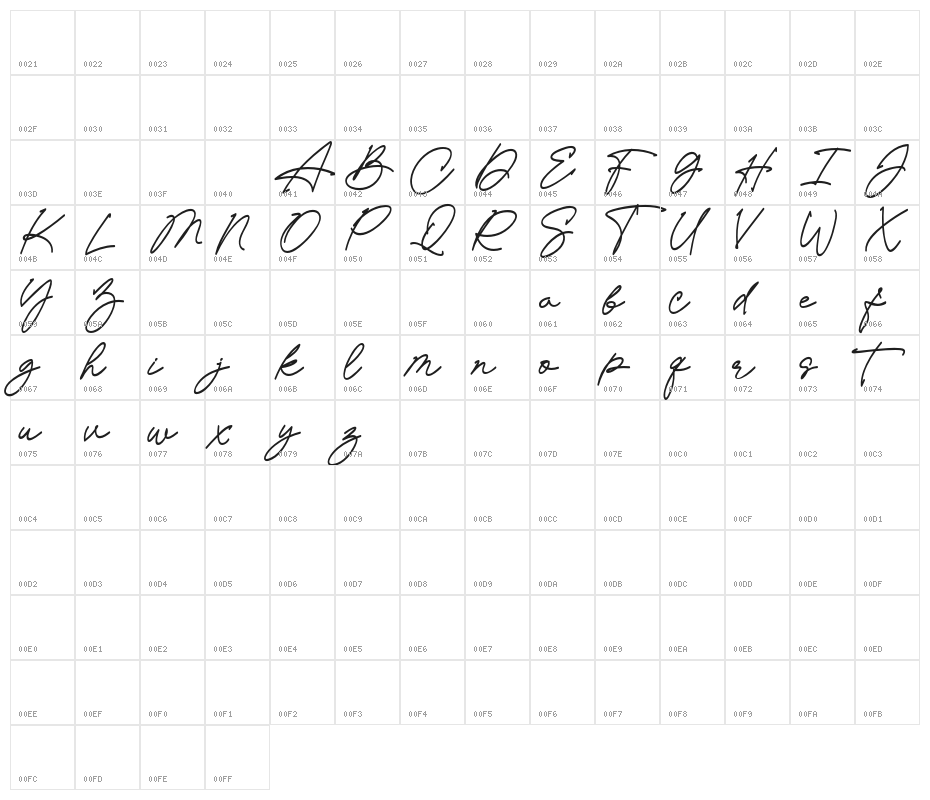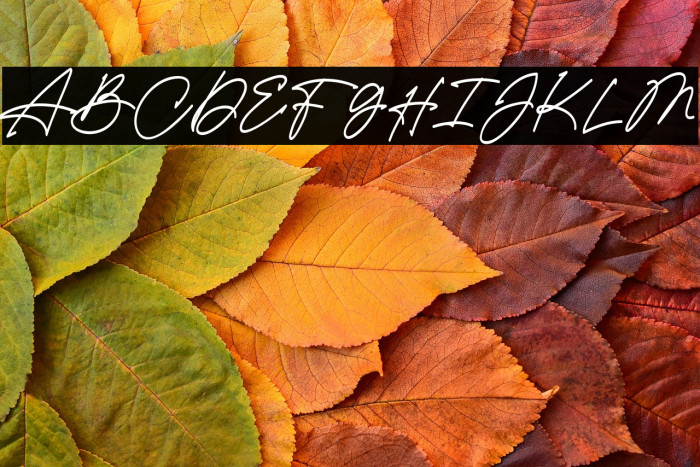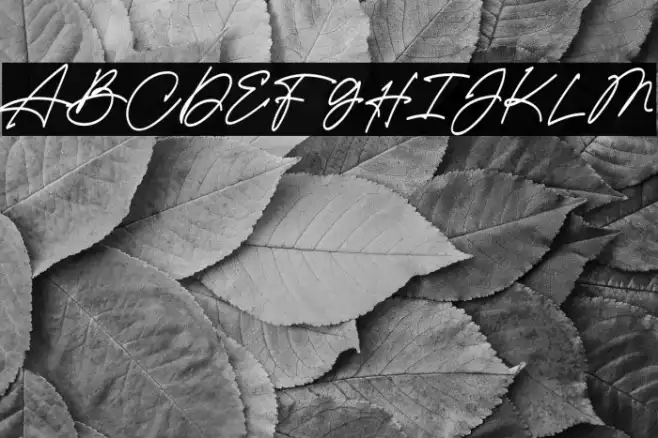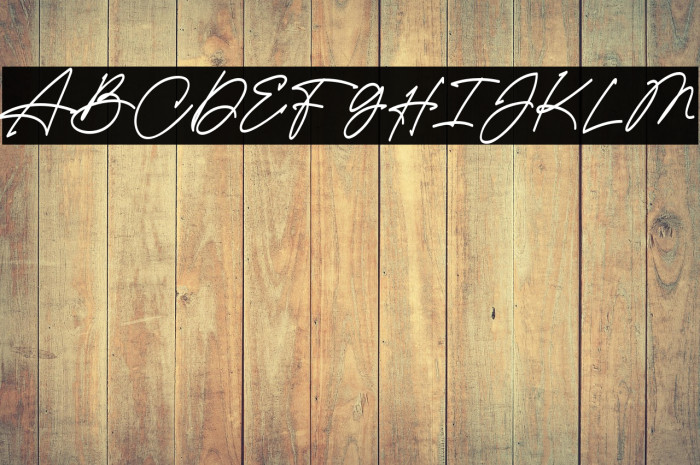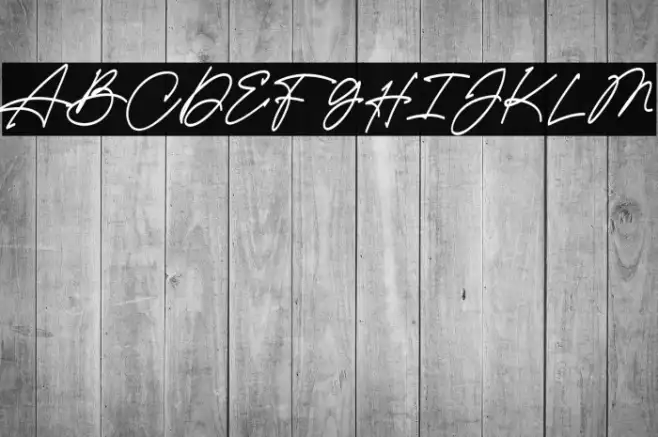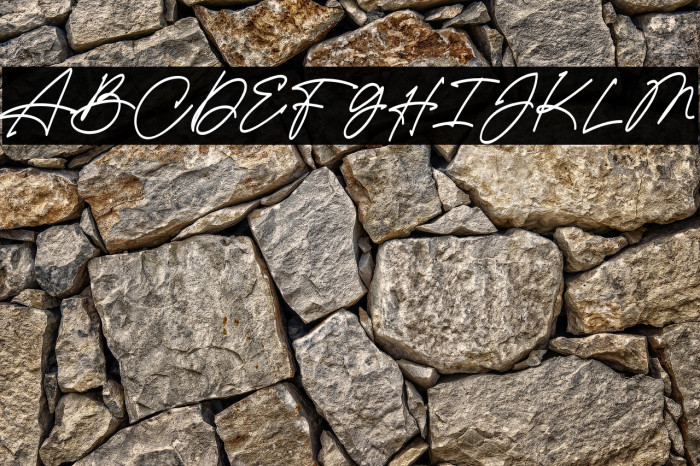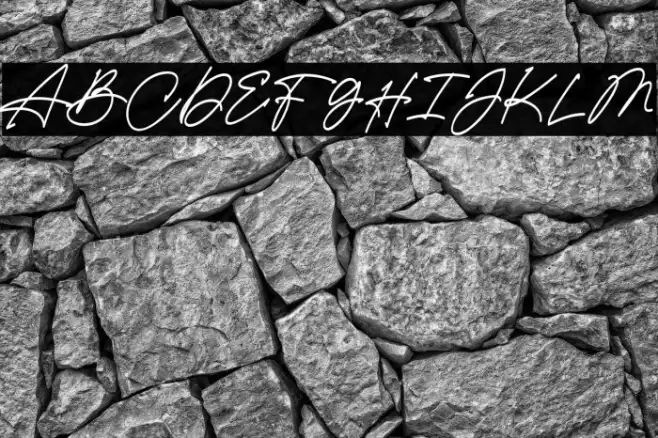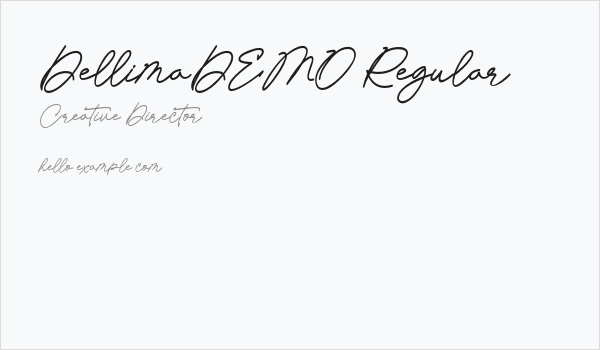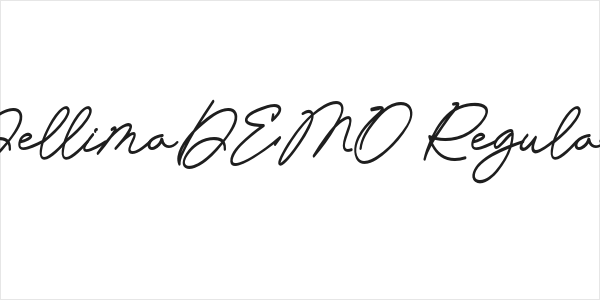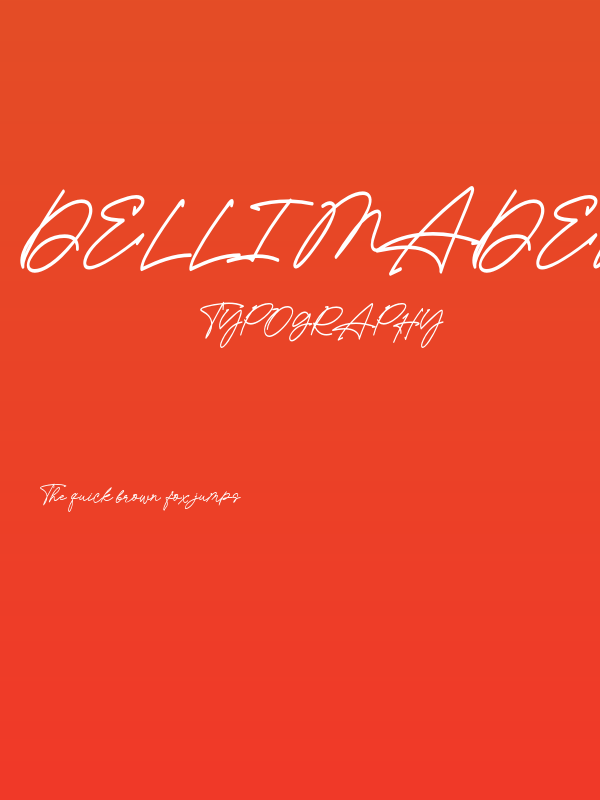
DellimaDEMO-Regular Font
DellimaDEMO-Regular Description
This font features a flowing, cursive style that mimics elegant handwriting. The letters are interconnected, creating a seamless and fluid appearance. The strokes vary in thickness, adding a dynamic and lively feel to the text. The uppercase letters are tall and graceful, while the lowercase letters maintain a consistent baseline with occasional loops and flourishes. This font exudes a sense of sophistication and creativity, making it ideal for projects that require a personal touch.
| Proposed Projects | Ideal for wedding invitations, greeting cards, personal branding, and artistic projects. |